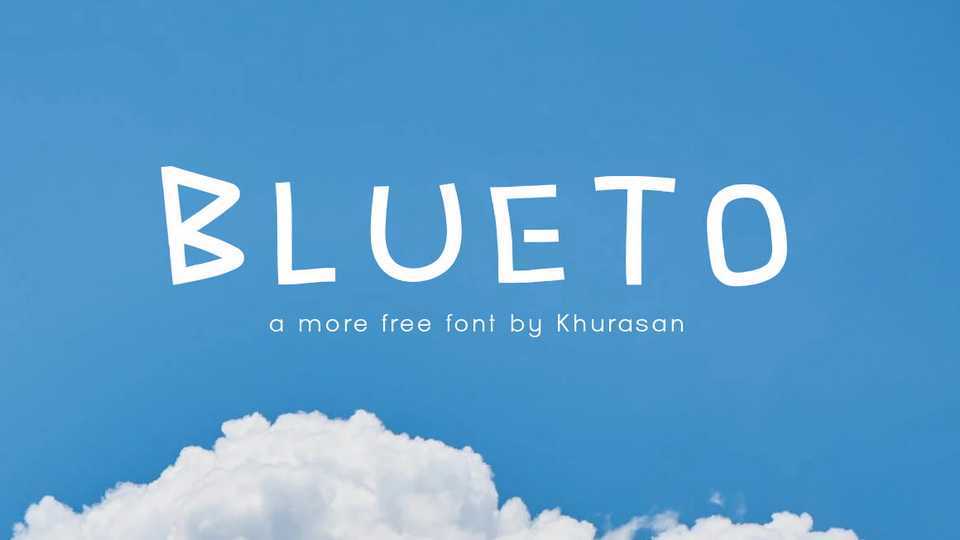
Download Blueto font, a simple and cute handwritten typeface. Blueto is perfect for comics, posters, logos, magazines, book covers, banners, and many more.